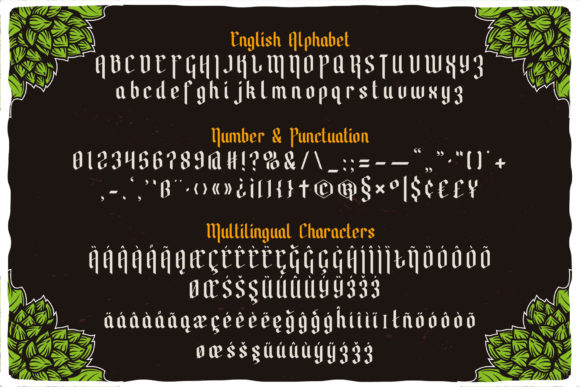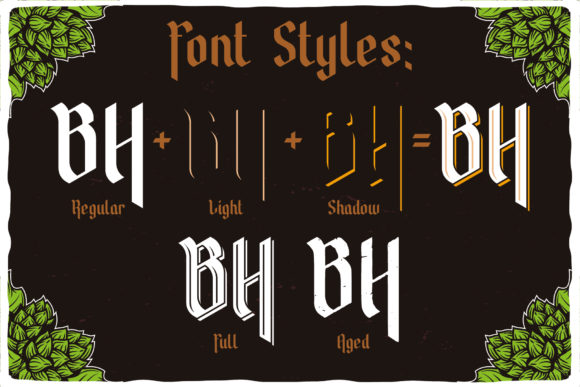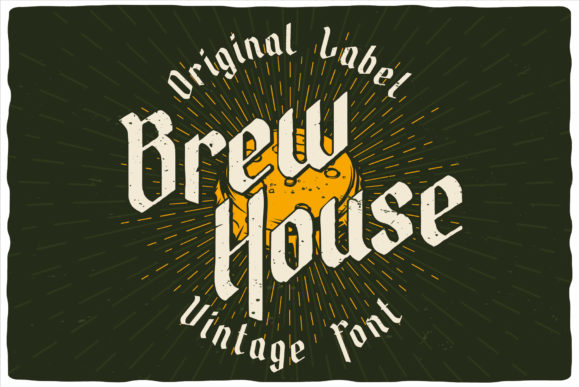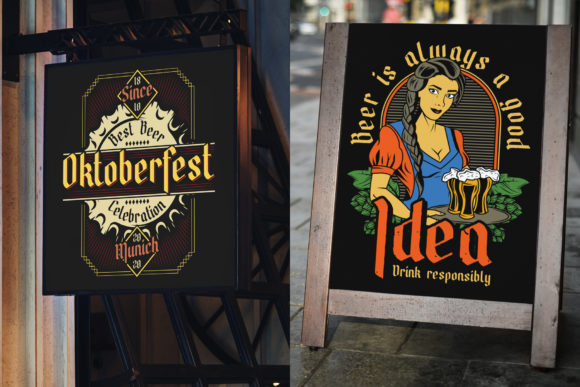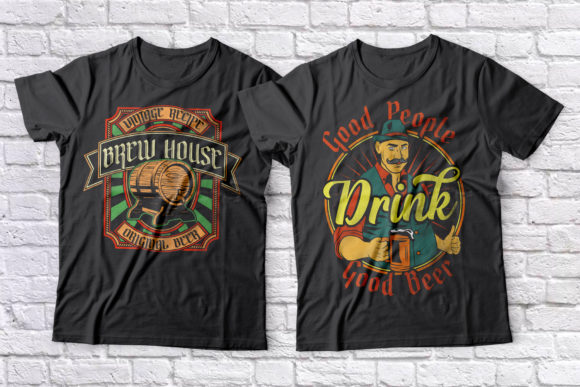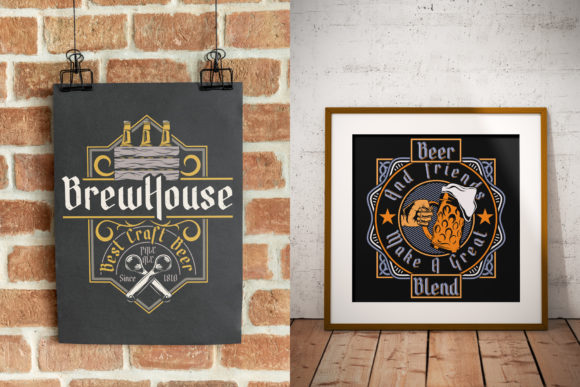
Brew House Font: The Ultimate Blackletter Font for Designers and Crafters
In the world of typography, blackletter fonts have always been a popular choice for designers and crafters looking to add a touch of elegance and sophistication to their projects. One such font that has gained significant attention in recent times is the Brew House Font. This simple yet authentic blackletter font has become a go-to choice for creating stunning branding, product packaging, invitations, quotes, t-shirts, labels, posters, and logos. In this article, we’ll take a closer look at the Brew House Font and explore its features, benefits, and uses.
What is Brew House Font?
Brew House Font is a modern blackletter font that boasts a unique and authentic design. Its simplicity and elegance make it an ideal choice for designers and crafters looking to create visually appealing projects. The font features intricate details and ornate strokes, giving it a distinctive look that sets it apart from other blackletter fonts.
Key Features of Brew House Font
- Simple and Authentic Design: Brew House Font features a simple yet authentic blackletter design that is perfect for creating elegant and sophisticated projects.
- High-Quality Letters: The font includes high-quality letters with intricate details and ornate strokes, making it perfect for use in a variety of projects.
- Versatile: Brew House Font is a versatile font that can be used in a wide range of projects, including branding, product packaging, invitations, quotes, t-shirts, labels, posters, and logos.
- Easily Customizable: The font is easily customizable, allowing designers and crafters to adjust the letters to fit their specific needs.
Benefits of Using Brew House Font
There are several benefits to using Brew House Font in your projects. Some of the most significant advantages include:
- Unique and Authentic Look: Brew House Font features a unique and authentic design that sets it apart from other blackletter fonts.
- Time-Saving: The font is pre-designed, saving designers and crafters time and effort in creating their own letters from scratch.
- Consistency: Using a single font throughout a project ensures consistency and cohesion, making the project look more professional.
- Easy to Read: Despite its ornate design, Brew House Font is easy to read, making it perfect for use in a variety of projects.
Uses of Brew House Font
Brew House Font is a versatile font that can be used in a wide range of projects. Some of the most popular uses of the font include:
- Branding: Brew House Font is perfect for creating stunning branding materials, including logos, business cards, and letterheads.
- Product Packaging: The font can be used to create eye-catching product packaging that stands out on store shelves.
- Invitations: Brew House Font is ideal for creating elegant and sophisticated invitations for weddings, parties, and other events.
- Quotes and Posters: The font can be used to create inspiring quotes and posters that feature a unique and authentic design.
- T-Shirts and Apparel: Brew House Font is perfect for creating stunning t-shirts and apparel that feature a distinctive design.
Tips for Using Brew House Font
To get the most out of Brew House Font, here are some tips to keep in mind:
- Use it Sparingly: While Brew House Font is a beautiful font, it’s best to use it sparingly to avoid overwhelming the reader.
- Pair it with Other Fonts: The font can be paired with other fonts to create a unique and visually appealing design.
- Adjust the Size and Color: Adjusting the size and color of the font can help to create a more balanced design.
| Font Name | Brew House Font |
| Author | Vozzy Vintage Fonts And Graphics |
Brew House Font is a simple yet authentic blackletter font that is perfect for designers and crafters looking to create stunning projects. Its unique and authentic design, versatility, and ease of use make it an ideal choice for a wide range of projects. Whether you’re creating branding materials, product packaging, invitations, quotes, t-shirts, or logos, Brew House Font is sure to impress. So why not give it a try and see the difference it can make in your designs?